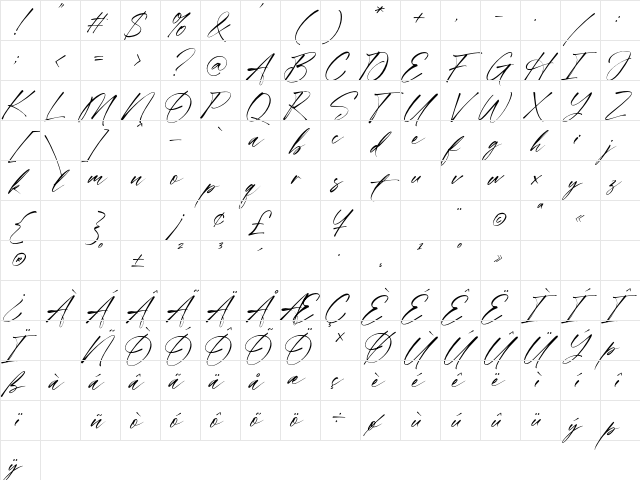
Brastagi Regular
Designer: Annas Alam Yahya
Design Context for Brastagi
Brastagi is a composed and adaptable typeface that performs quietly and consistently across a wide range of design contexts.